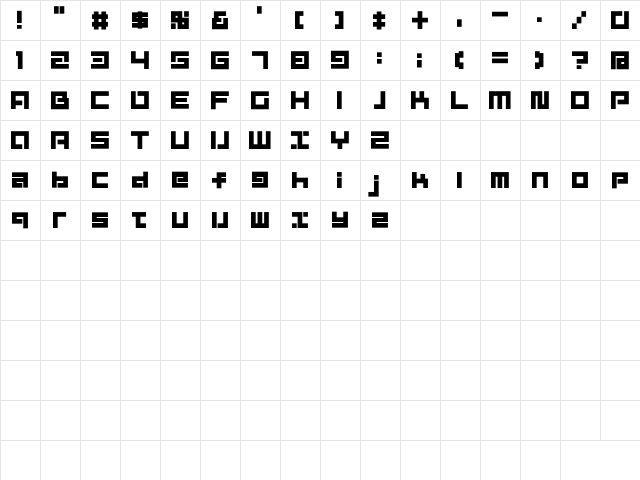
D3 Mouldism Alphabet Regular Font Preview
D3 Mouldism Alphabet Regular
Design Context for D3 Mouldism Alphabet Typeface
D3 Mouldism Alphabet takes a measured approach to typography — its balanced proportions and neutral character make it a reliable workhorse for both digital and print work.